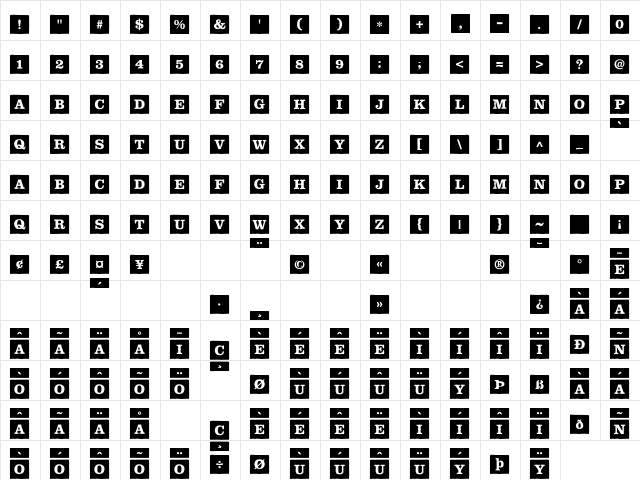
ChildsPlay BlocksSolidBold Regular
Design Context for ChildsPlay BlocksSolidBold Typeface
ChildsPlay BlocksSolidBold has an approachable, lighthearted character — its loose, expressive forms are well-suited to children's content, casual branding, and fun-first design.
Font Pairing: Pairs well with a rounded or humanist sans for body copy, maintaining the friendly tone without relying on ChildsPlay BlocksSolidBold to carry extended reading.
Pro Tip: Avoid using ChildsPlay BlocksSolidBold for long passages of text — it works best for headlines, labels, and short calls to action.